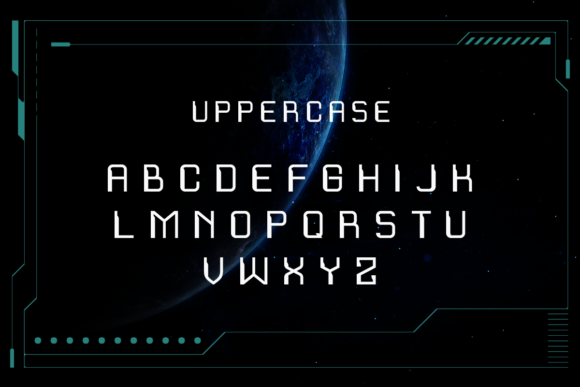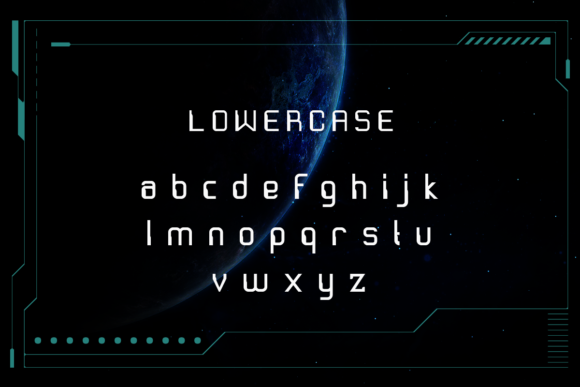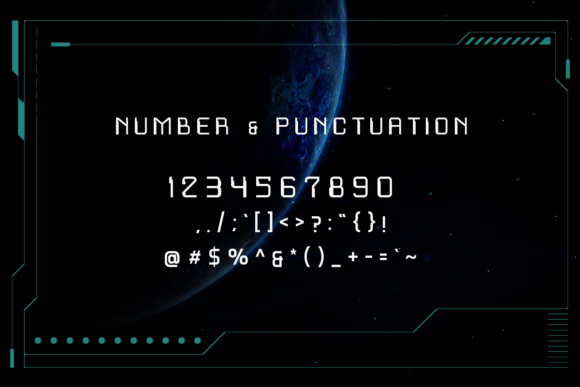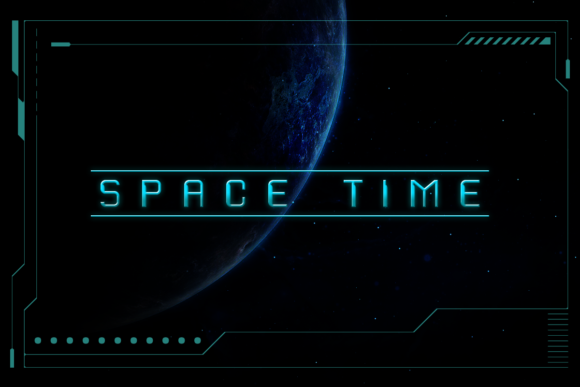
Introducing Exo Space Font: Elevate Your Designs with a Futuristic Twist
In the realm of design, fonts play a pivotal role in conveying messages, evoking emotions, and capturing attention. For designers and crafters seeking to infuse their projects with a futuristic flair, Exo Space Font emerges as an exceptional choice. This article delves into the characteristics, applications, and benefits of Exo Space Font, guiding you on how to harness its potential for your creative endeavors.
What is Exo Space Font?
Exo Space Font is a meticulously crafted, futuristic display font designed to make a statement. Its sleek lines, advanced typography, and space-age aesthetic make it an ideal selection for projects that demand a modern and avant-garde look. Whether you’re working on posters, flyers, or any print materials, Exo Space Font promises to elevate your designs, making them not only visually stunning but also highly engaging.
Key Features of Exo Space Font
- Unique Futuristic Design: Exo Space Font boasts a unique design that instantly gives off a futuristic vibe, perfect for projects that require a modern edge.
- High Versatility: Its clean and simple structure allows it to be versatile, making it suitable for a wide range of design applications.
- Excellent Legibility: Despite its futuristic appeal, the font maintains excellent legibility, ensuring your message is conveyed clearly and effectively.
- Easy to Pair: Exo Space Font can be easily paired with other fonts, offering you the flexibility to experiment with different typography combinations.
Applications of Exo Space Font
The applications of Exo Space Font are vast and varied, limited only by your imagination. Here are some popular uses:
- Posters and Flyers: Add a futuristic touch to your promotional materials, making them stand out.
- Branding and Logos: Use Exo Space Font to create modern and memorable brand identities.
- Web Design: Incorporate it into your website design for a sleek and contemporary look.
- Social Media Graphics: Elevate your social media presence with eye-catching graphics.
- Packaging Design: Make your product packaging look cutting-edge and appealing.
Benefits of Using Exo Space Font
Choosing Exo Space Font for your design projects comes with numerous benefits:
- Time-Saving: With its instant futuristic appeal, you save time that would otherwise be spent on creating custom typography.
- Professional Look: Achieve a professional and polished look without extensive design experience.
- Endless Possibilities: The font’s versatility means you can use it across various projects, exploring endless design possibilities.
How to Use Exo Space Font in Your Designs
Integrating Exo Space Font into your workflow is straightforward:
- Experiment with Styles: Play around with different sizes, colors, and effects to match your design theme.
- Pair with Other Fonts: Don’t be afraid to experiment with font combinations to create visual interest.
| Font Name | Exo Space Font |
| Author | EkoZero7 |
Exo Space Font is more than just a typeface; it’s a design statement. Its futuristic appeal, versatility, and legibility make it an indispensable tool for designers and crafters aiming to create impactful and visually stunning projects. By incorporating Exo Space Font into your designs, you’re not just choosing a font; you’re embracing a futuristic design approach that sets your work apart. Explore its endless possibilities and let your creativity soar to new heights.